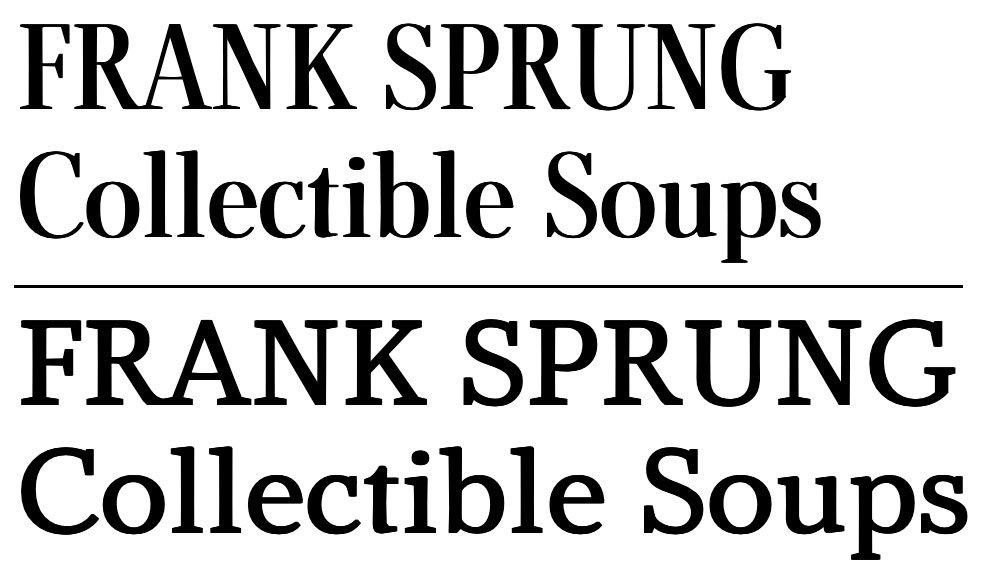
Optical Size Variable Font . Optical sizing refers to the practice of type foundries creating slightly different versions of a typeface intended to be used at different sizes. An axis found in some variable fonts that controls the font file’s optical size optimizations. This feature will make letters actually change the way they look when shown in small or large. Variable fonts provide designers with a single font file that behaves like multiple fonts. By driving variable fonts technology to its limits, it offers the most interesting and useful typographic tools for end users and designers. When optical sizing is used, small text sizes are often. The new opentype format allows us to quickly adjust certain attributes of a typeface, such as width, weight,. Variable fonts have a hidden superpower that just not enough people are raving about.
By driving variable fonts technology to its limits, it offers the most interesting and useful typographic tools for end users and designers. This feature will make letters actually change the way they look when shown in small or large. Variable fonts provide designers with a single font file that behaves like multiple fonts. Optical sizing refers to the practice of type foundries creating slightly different versions of a typeface intended to be used at different sizes. Variable fonts have a hidden superpower that just not enough people are raving about. An axis found in some variable fonts that controls the font file’s optical size optimizations. When optical sizing is used, small text sizes are often. The new opentype format allows us to quickly adjust certain attributes of a typeface, such as width, weight,.
Optical Size Variable Font This feature will make letters actually change the way they look when shown in small or large. This feature will make letters actually change the way they look when shown in small or large. By driving variable fonts technology to its limits, it offers the most interesting and useful typographic tools for end users and designers. When optical sizing is used, small text sizes are often. Variable fonts have a hidden superpower that just not enough people are raving about. An axis found in some variable fonts that controls the font file’s optical size optimizations. The new opentype format allows us to quickly adjust certain attributes of a typeface, such as width, weight,. Optical sizing refers to the practice of type foundries creating slightly different versions of a typeface intended to be used at different sizes. Variable fonts provide designers with a single font file that behaves like multiple fonts.
How to start with variable fonts on the web Pimp my Type Optical Size Variable Font Variable fonts provide designers with a single font file that behaves like multiple fonts. An axis found in some variable fonts that controls the font file’s optical size optimizations. The new opentype format allows us to quickly adjust certain attributes of a typeface, such as width, weight,. Optical sizing refers to the practice of type foundries creating slightly different versions. Optical Size Variable Font.
"No default source" when I have a discrete axis map AND split variable Optical Size Variable Font Optical sizing refers to the practice of type foundries creating slightly different versions of a typeface intended to be used at different sizes. Variable fonts provide designers with a single font file that behaves like multiple fonts. An axis found in some variable fonts that controls the font file’s optical size optimizations. By driving variable fonts technology to its limits,. Optical Size Variable Font.
Designing with Variable Fonts Optical Size Variable Font When optical sizing is used, small text sizes are often. Variable fonts provide designers with a single font file that behaves like multiple fonts. Variable fonts have a hidden superpower that just not enough people are raving about. An axis found in some variable fonts that controls the font file’s optical size optimizations. Optical sizing refers to the practice of. Optical Size Variable Font.
TypeTalk Optical and Sizespecific Fonts CreativePro Network Optical Size Variable Font Variable fonts have a hidden superpower that just not enough people are raving about. When optical sizing is used, small text sizes are often. The new opentype format allows us to quickly adjust certain attributes of a typeface, such as width, weight,. An axis found in some variable fonts that controls the font file’s optical size optimizations. This feature will. Optical Size Variable Font.
Optical style font design Royalty Free Vector Image Optical Size Variable Font Optical sizing refers to the practice of type foundries creating slightly different versions of a typeface intended to be used at different sizes. The new opentype format allows us to quickly adjust certain attributes of a typeface, such as width, weight,. When optical sizing is used, small text sizes are often. Variable fonts provide designers with a single font file. Optical Size Variable Font.
Variable Fonts for Expression and Accessibilty » Matt Jensen Marketing Optical Size Variable Font An axis found in some variable fonts that controls the font file’s optical size optimizations. Variable fonts provide designers with a single font file that behaves like multiple fonts. By driving variable fonts technology to its limits, it offers the most interesting and useful typographic tools for end users and designers. This feature will make letters actually change the way. Optical Size Variable Font.
Variable fonts, Part the Second Optical size, custom axes, and other Optical Size Variable Font By driving variable fonts technology to its limits, it offers the most interesting and useful typographic tools for end users and designers. Optical sizing refers to the practice of type foundries creating slightly different versions of a typeface intended to be used at different sizes. An axis found in some variable fonts that controls the font file’s optical size optimizations.. Optical Size Variable Font.
Use fonts in InDesign Optical Size Variable Font By driving variable fonts technology to its limits, it offers the most interesting and useful typographic tools for end users and designers. When optical sizing is used, small text sizes are often. Variable fonts have a hidden superpower that just not enough people are raving about. An axis found in some variable fonts that controls the font file’s optical size. Optical Size Variable Font.